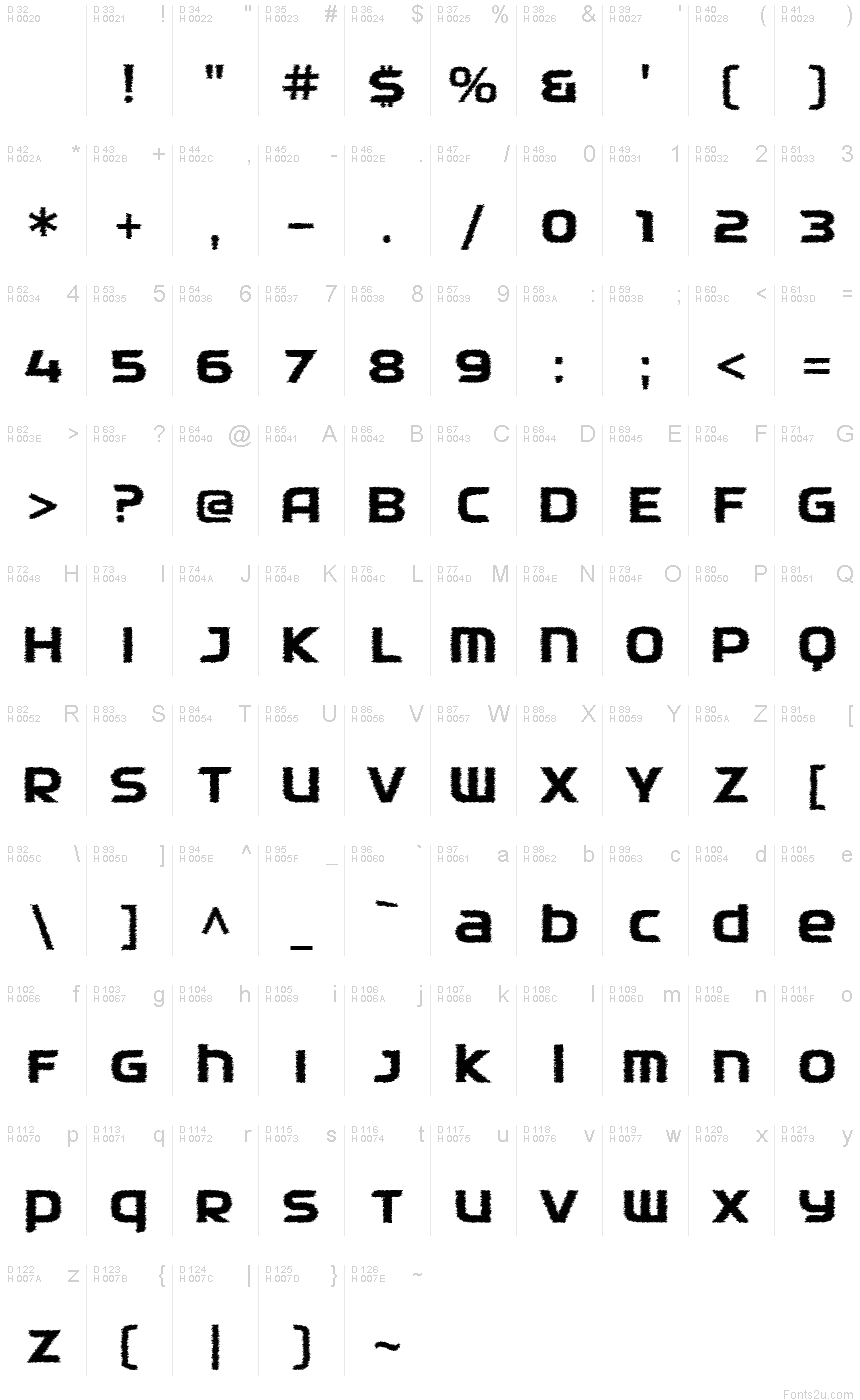
SF Hypocrisy Sketched by Derek Vogelpohl of ShyFoundry.com is a free distressed brush display font with broad, uneven strokes and ragged edges. Its blunt shapes look hastily painted and slightly worn.
It can turn a poster heading into part lettering, part scuffed graphic, especially for underground music or streetwear. The coarse texture also suits album packaging, skate merchandise, and rough-edged event graphics, where clean digital type would feel too polished. Its strongest territory is punk, grunge, and DIY culture, subjects that match the scraped surface and irregular construction.